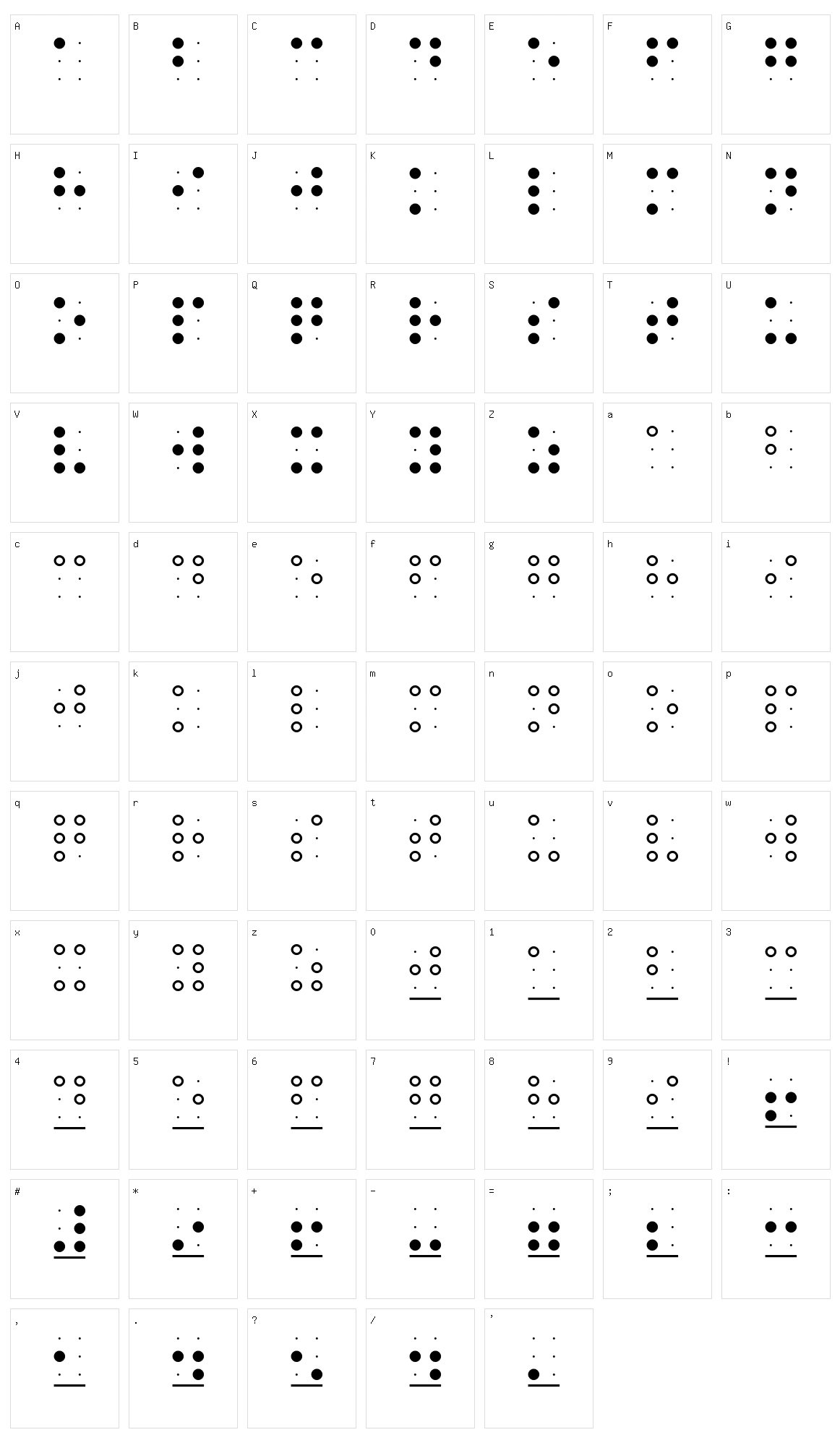
Braille HC is a work-in-progress family based on the first version of the Braille language. The styles included are:
- Latin
- Pixel
- Pinboard
- Grid
- Color [to be made]